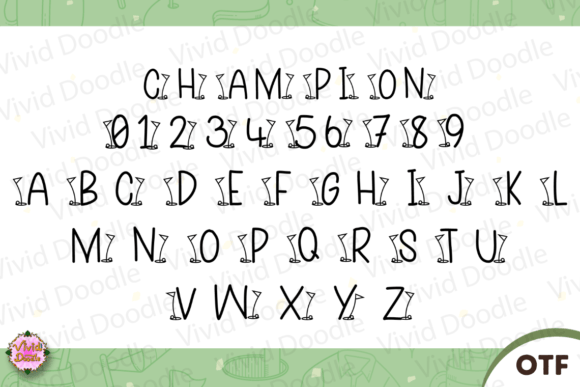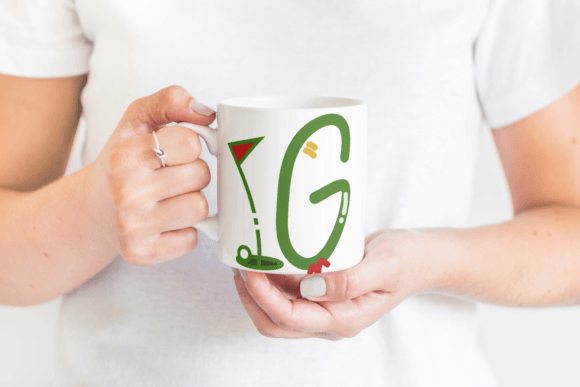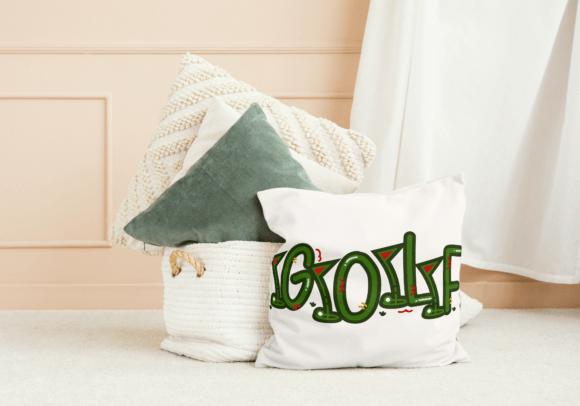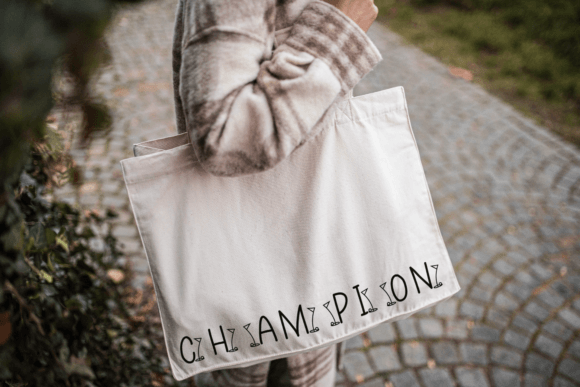
Introducing Champion Font: The Ultimate Holiday Companion for Designers and Crafters
Are you ready to infuse your designs and crafts with the magic of the holiday season? Look no further! We’re thrilled to introduce Champion Font, a unique, hand-lettered typeface that embodies the festive spirit and warmth of the season. This newly crafted font is specifically designed to bring joy and merriment to your creations, making it the perfect addition to your holiday projects.
What Makes Champion Font Special?
Champion Font is more than just a holiday font – it’s an experience. With its enchanting and exclusive design, this font is sure to elevate your projects and set them apart from the rest. Here are a few reasons why Champion Font stands out:
- Hand-lettered with love: Each letter has been carefully crafted by hand, giving Champion Font a unique and personal touch that’s perfect for adding a human element to your designs.
- Festive and versatile: While Champion Font is specifically designed for the holiday season, its adaptability makes it suitable for a wide range of projects, from Christmas cards and decorations to branding and marketing materials.
- Exclusive and enchanting: Champion Font is a one-of-a-kind typeface that’s sure to captivate your audience and leave a lasting impression.
How to Use Champion Font in Your Projects
Champion Font is incredibly easy to use and can be incorporated into a variety of projects, including:
- Holiday cards and invitations: Add a touch of festive cheer to your holiday cards and invitations with Champion Font’s elegant and playful letters.
- Branding and marketing materials: Use Champion Font to create eye-catching logos, posters, and social media graphics that showcase your brand’s personality and style.
- Crafting and DIY projects: Champion Font is perfect for crafters and DIY enthusiasts who want to add a personal touch to their holiday decorations, gift tags, and other handmade projects.
Tips for Getting the Most Out of Champion Font
To make the most of Champion Font, here are a few tips to keep in mind:
- Experiment with colors and textures: Champion Font looks great in a variety of colors and textures, so don’t be afraid to get creative and try out different combinations.
- Mix and match with other fonts: Champion Font pairs well with a range of other fonts, so feel free to experiment with different combinations to create a unique look.
- Use it sparingly: While Champion Font is a beautiful and eye-catching typeface, it’s best used sparingly to avoid overwhelming your design.
Champion Font is the perfect companion for designers and crafters who want to add a touch of festive cheer to their holiday projects. With its unique, hand-lettered design and versatile adaptability, this font is sure to become a go-to in your design arsenal. So why wait? Download Champion Font today and experience the merriment of the season in a whole new way!
- Unique, hand-lettered design
- Festive and versatile
- Exclusive and enchanting
- Perfect for holiday projects, branding, and crafting